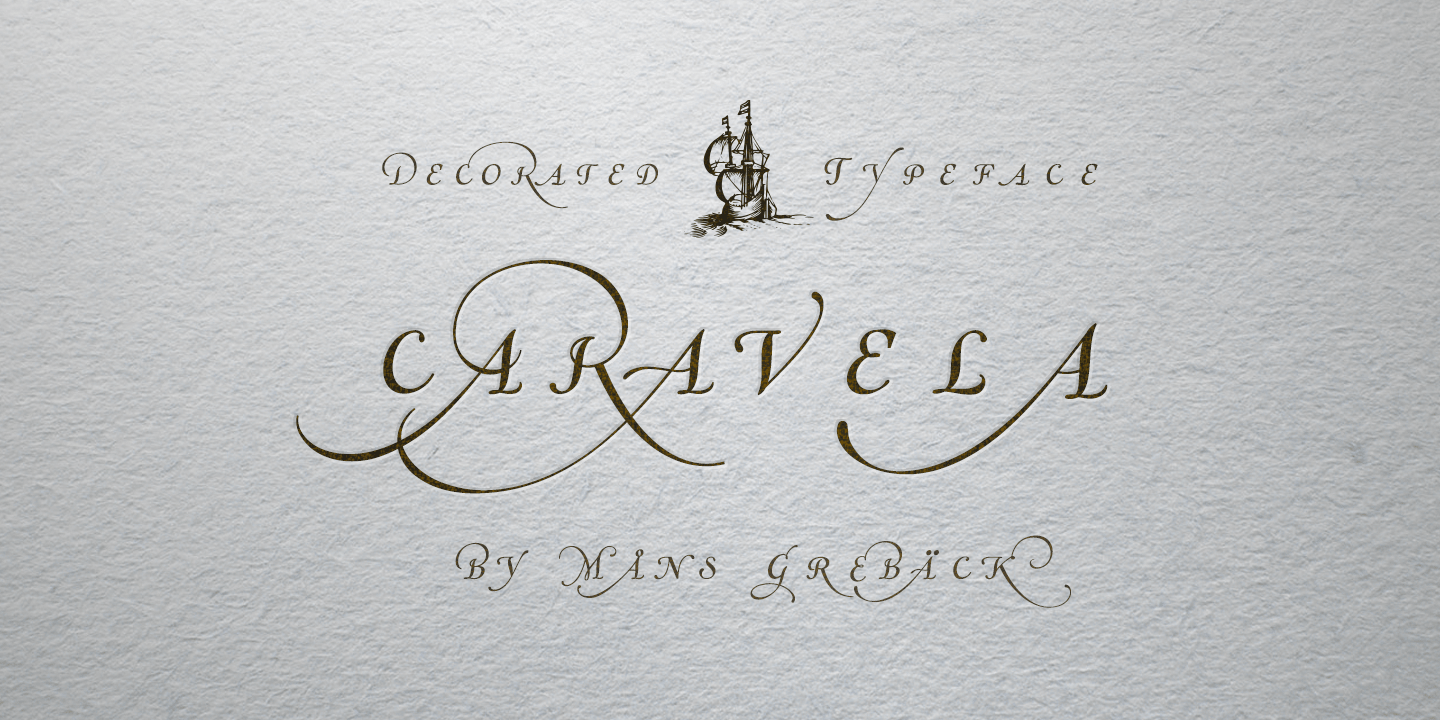
Caravela Font is perfect for maritime museum exhibits, nautical adventure themes, Portuguese heritage projects, exploration history materials, sailing club branding, coastal tourism promotions, maritime restaurant signage, and oceanic discovery communications.
This adventurous serif typeface is exciting because it captures the bold spirit and maritime heritage of Portuguese exploration through sturdy letterforms that evoke the legendary caravels that carried brave navigators across uncharted seas to discover new worlds.
The Caravela Font family includes light, regular, medium, and bold weights with nautical alternates, maritime decorative elements, and exploration-inspired flourishes that enhance the adventurous, seafaring atmosphere of any oceanic design project.
Adventurous and historic, Caravela Font Free Download brings the courage and maritime excellence of Portuguese exploration to contemporary typography through authentic seafaring character. This distinguished font embodies the navigational skill and adventurous spirit that launched the Age of Discovery, making it invaluable for museums and cultural institutions celebrating maritime heritage and the courage that expanded human knowledge of the world. Its sturdy character reflects the seaworthy construction and reliable craftsmanship that enabled epic ocean voyages and the determination that drove explorers to sail beyond known horizons, resonating with audiences who appreciate the maritime traditions that connected continents and cultures. Perfect for maritime museums and sailing organizations, this font ensures your message carries the nautical authenticity and exploratory credibility that oceanic subjects deserve. Whether used for sailing club materials or exploration history exhibits, Caravela Font Free Download delivers the maritime heritage and adventurous spirit that connects with people who understand that human progress has always depended on the courage to venture into unknown waters and the navigational skills that guide safe passage to new discoveries.